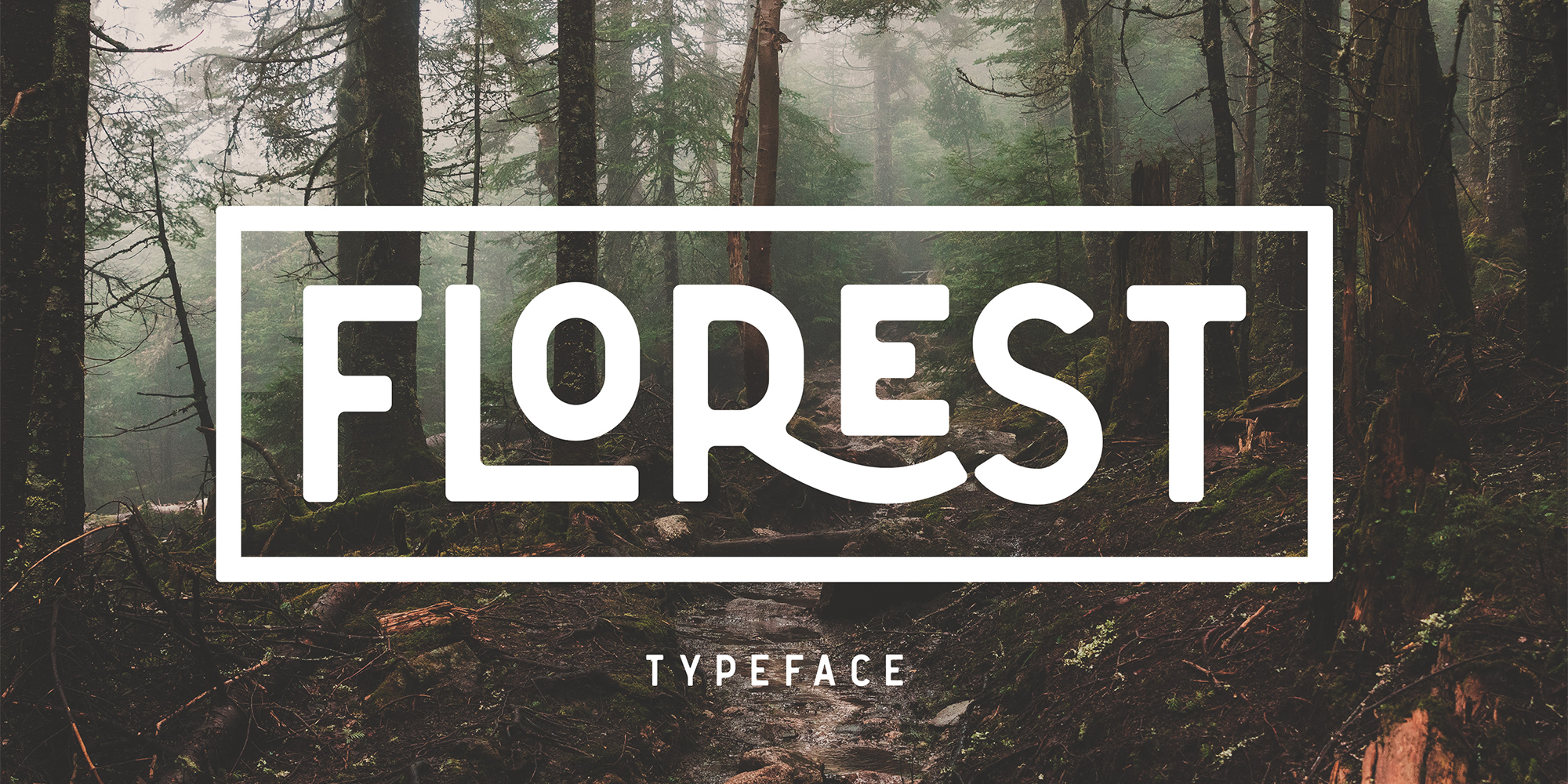
Florest Display Font is perfect for forest conservation campaigns, eco-tourism branding, national park signage, environmental education materials, woodland retreat marketing, nature photography portfolios, sustainable forestry organizations, outdoor adventure gear, wildlife sanctuary graphics, and any organic project that celebrates the majestic beauty and vital importance of our world's forest ecosystems.
What makes Florest Display Font exciting is its natural grandeur that captures the towering majesty of ancient forests and the profound tranquility found among cathedral-like groves of trees. This typeface embodies the essence of woodland wisdom with organic letterforms that seem to grow like mighty oaks, reaching skyward with the patient strength of centuries-old giants. The font's forest character makes it perfect for brands and projects that want to communicate environmental stewardship, natural beauty, and the irreplaceable value of forest preservation for future generations.
The Florest Display Font family includes multiple weights and organic variations, featuring light, regular, and bold versions along with decorative elements and alternate characters inspired by tree branches, leaf patterns, and natural forest textures. This comprehensive collection allows designers to create authentically natural typography that maintains the font's signature woodland character while providing flexibility for various environmental and outdoor design applications.
When exploring authentic forest typography, Florest Display Font Free Download offers designers an exceptional opportunity to work with a typeface that genuinely captures the spirit of forest conservation and natural harmony. This font demonstrates innovative design thinking by incorporating the organic growth patterns and structural beauty that define both forest ecosystems and the timeless appeal of living in harmony with nature.
Professional designers appreciate Florest Display Font for its ability to instantly communicate environmental consciousness and natural authenticity across various conservation platforms. The font's organic character makes it particularly effective for environmental organizations, eco-friendly brands, and outdoor recreation companies seeking to establish connections with audiences passionate about forest preservation and sustainable living.
The universal appeal of Florest Display Font lies in its perfect representation of natural heritage and environmental responsibility that continues to resonate with people seeking deeper connections to the natural world. This typeface serves as a powerful reminder of our dependence on healthy forests and the critical importance of protecting these vital ecosystems for planetary health.
For creative professionals working with environmental and outdoor brands, Florest Display Font represents the ultimate typography solution that brings authentic forest majesty and environmental consciousness to any application, ensuring designs reflect the natural grandeur and ecological importance that define our planet's most precious forest resources.